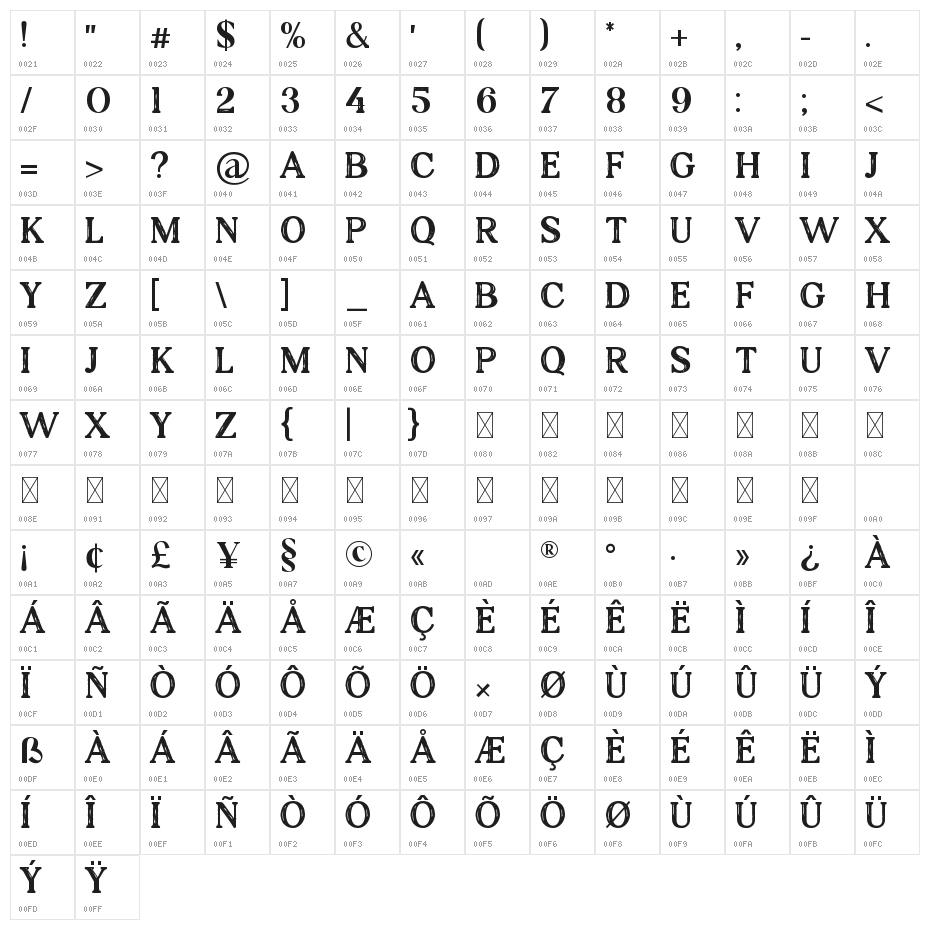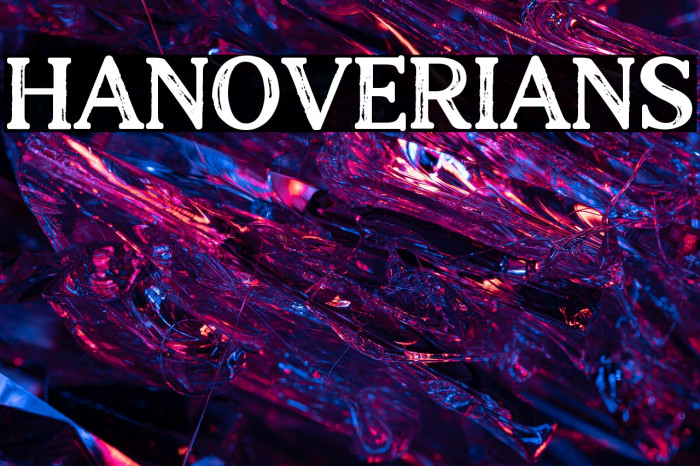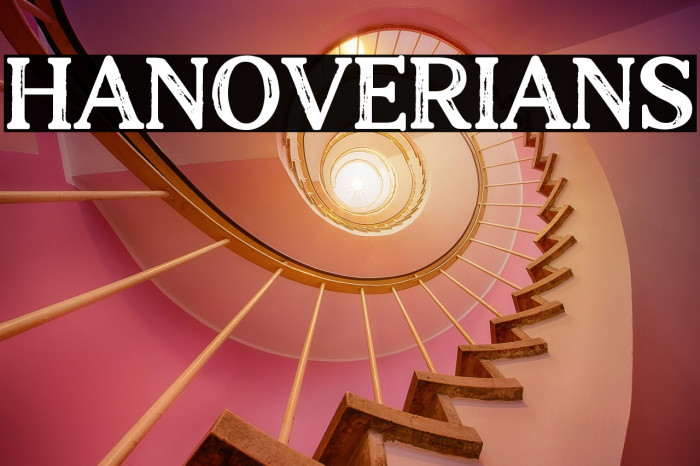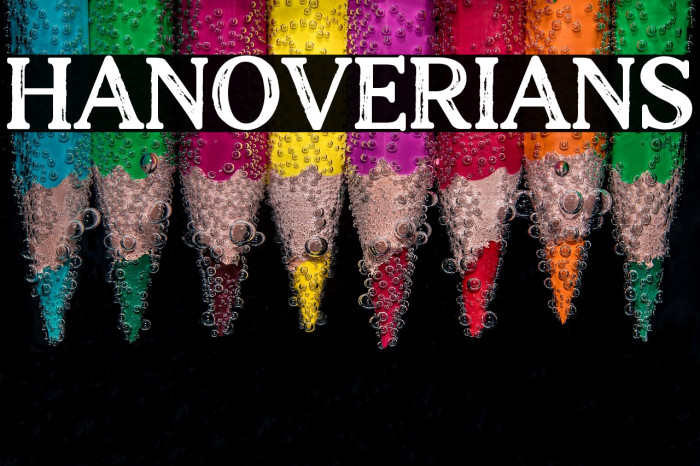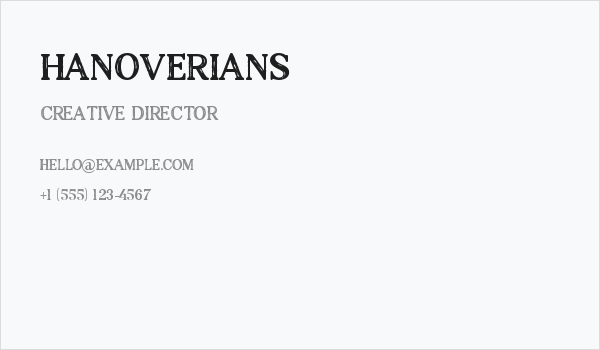
Hanoverians Font
Hanoverians Description
This font exhibits a bold and distressed style, characterized by its rough, textured edges that give it a vintage and worn appearance. The uppercase letters are prominent and commanding, while the numbers and special characters maintain the same rugged aesthetic. The font's design suggests a sense of history and timelessness, making it suitable for projects that require a touch of nostalgia or a rustic feel. Its boldness ensures readability, even with the distressed detailing, making it versatile for various design applications.
| Proposed Projects | Ideal for vintage-themed posters, branding for rustic products, book covers, and any design requiring a historical or nostalgic touch. |